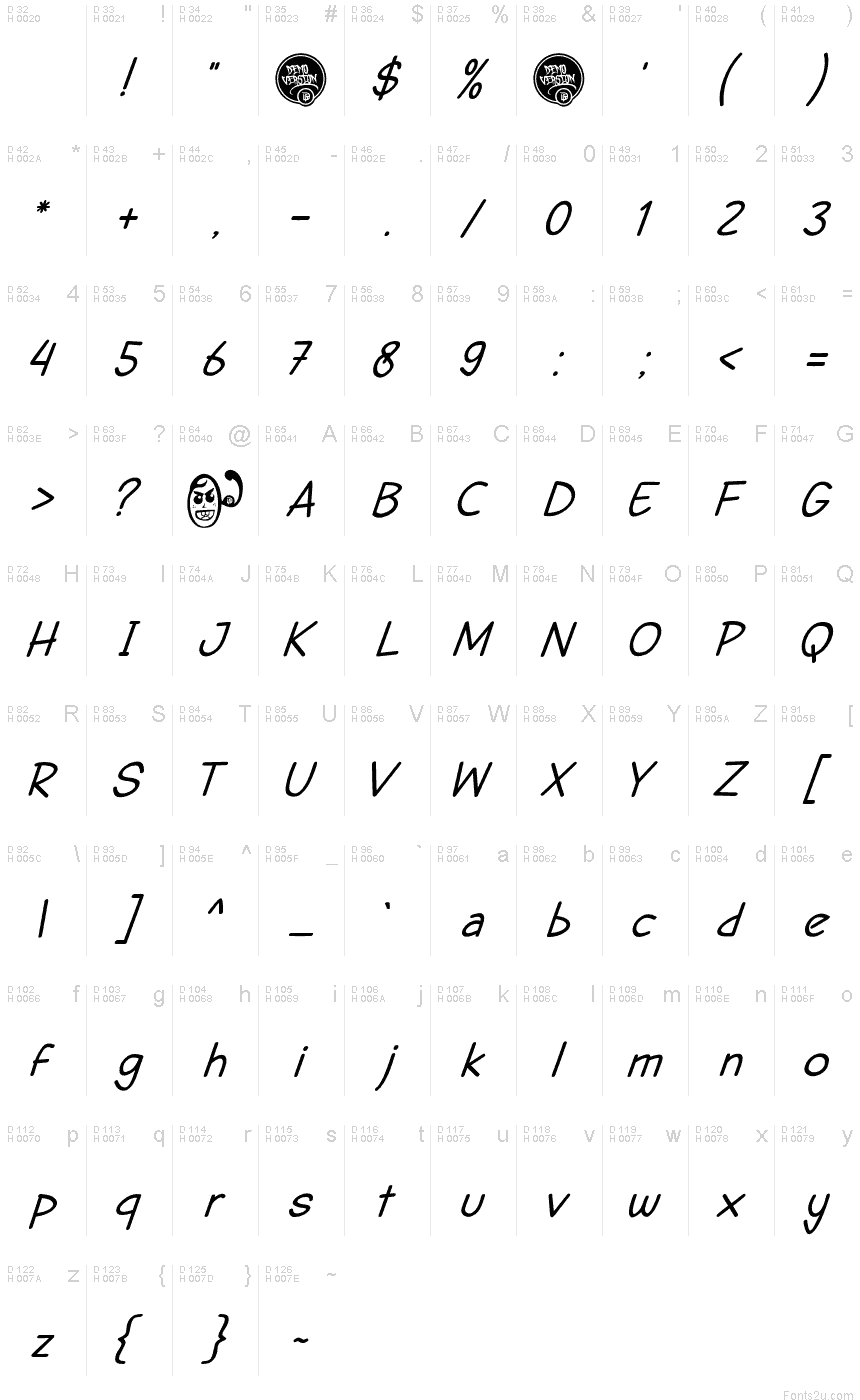
DHF Semangat 2012 Italic by Dexsar Harry Anugrah is a free comic display font with tall, narrow, loosely drawn letters and an eager forward slant. Sharp turns keep the loose lettering lively throughout.
The informal drawing suits both youth-event posters and independent music merchandise, where a polished typeface might feel too restrained. It also fits comic covers and casual food packaging, linked by the same fast, personal quality of hand-rendered signage.
The special font for Indonesian youth to never stop working.